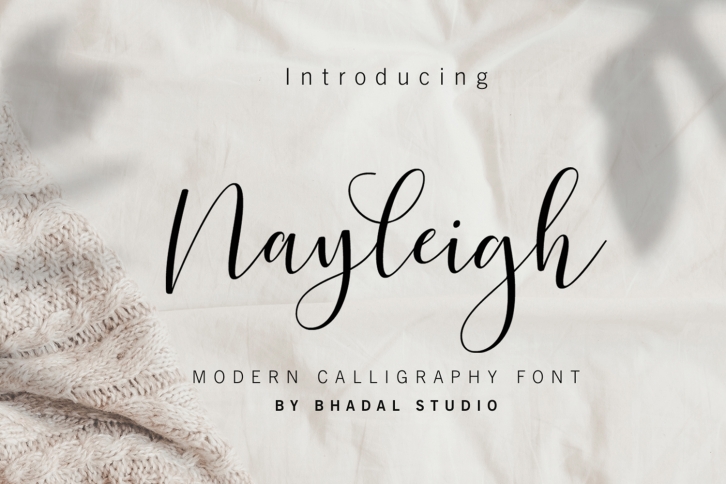
NAYLEIGH SCRIPT is a trendy and unique font with an authentic style. It was designed by BhadalStudio and it's a great choice for creative people who need such a font. It was released on February 27, 2020 and the file size is 15.50 MB. NAYLEIGH SCRIPT will add an organic vibe to any design idea!